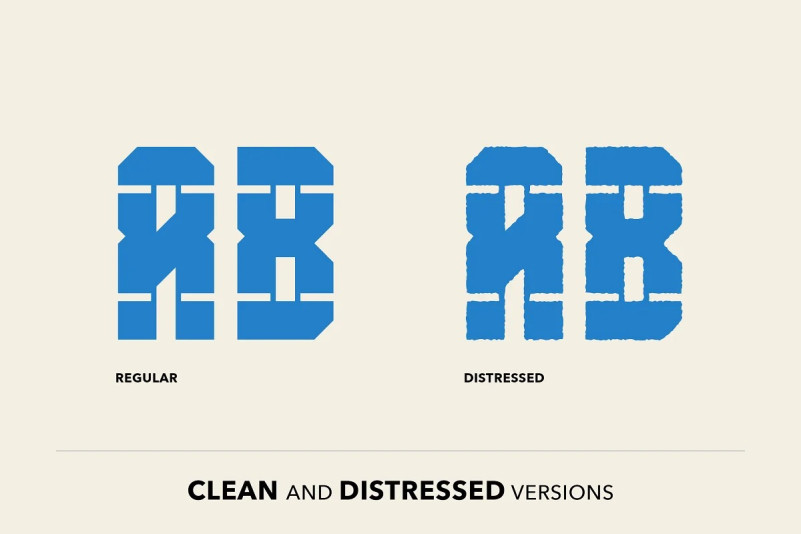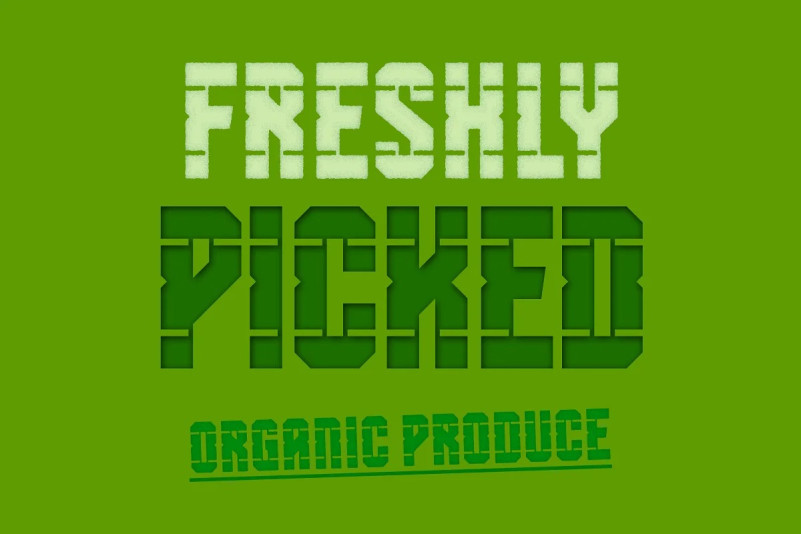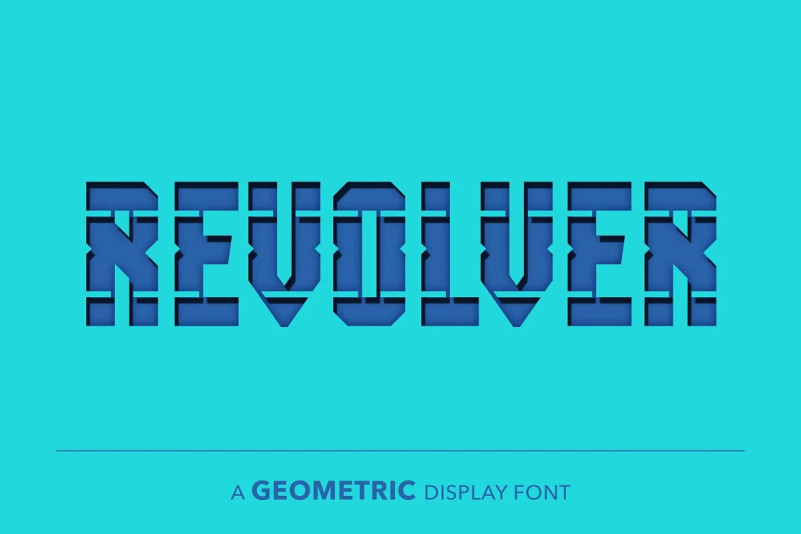
SB Revolver Font
SB Revolver Display Font is a poster sized display font inspired by papercrafts and wood type. It includes a distressed version that simulates print on a rough, absorbent paper.